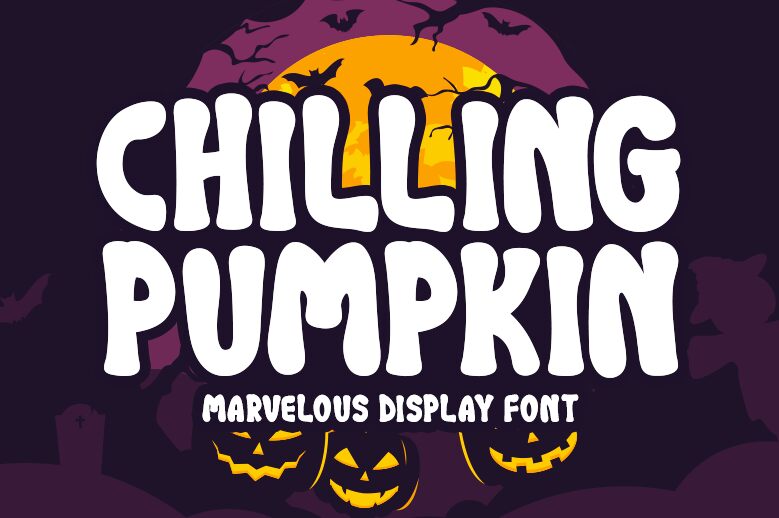
Chilling Pumpkin
Chilling Pumpkin font by Md Shohail Bhuian is a free Halloween display font. Its plump, squishy letterforms look freshly carved—rounded, inky edges with a playful wobble that reads spooky without turning sinister. The tight rhythm and chunky shapes hold up at big sizes, giving headlines that jack-o’-lantern glow while staying friendly for family events.
Using Chilling Pumpkin, you can nail party invitations, trick-or-treat bags, haunted house posters, classroom flyers, stickers, and social posts. This free font shines on banners and thumbnails where bold, bouncy texture matters. Pair it with a clean geometric sans for body copy, and bump tracking slightly at large sizes to let the gooey forms breathe.